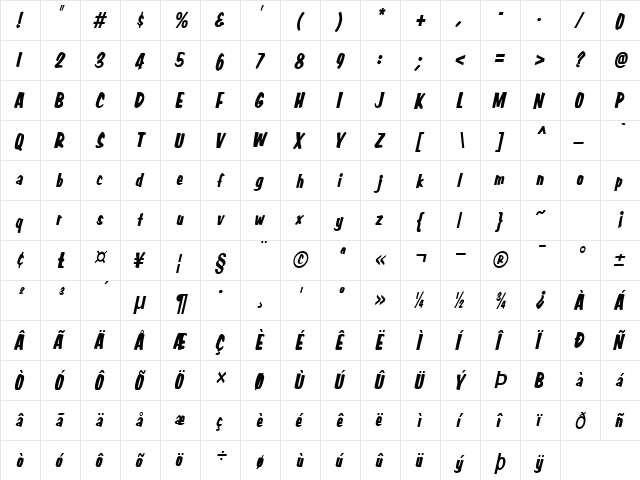
Big Nib-Condensed Italic Font Preview
Design Context for Big Nib-Condensed Typeface
Big Nib-Condensed is a composed and adaptable typeface that performs quietly and consistently across a wide range of design contexts. The slanted form adds forward momentum and visual energy. The condensed width makes it efficient for tight spaces without sacrificing legibility.